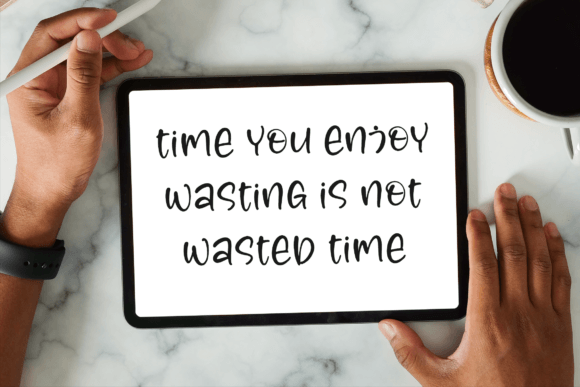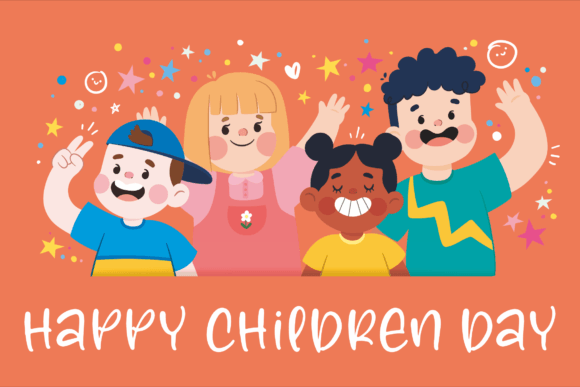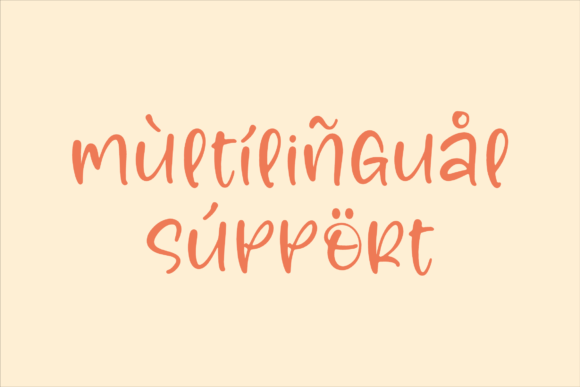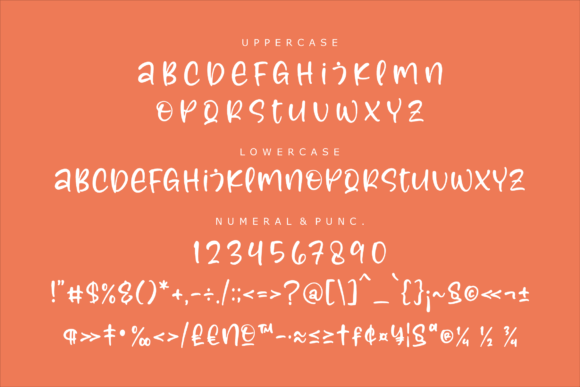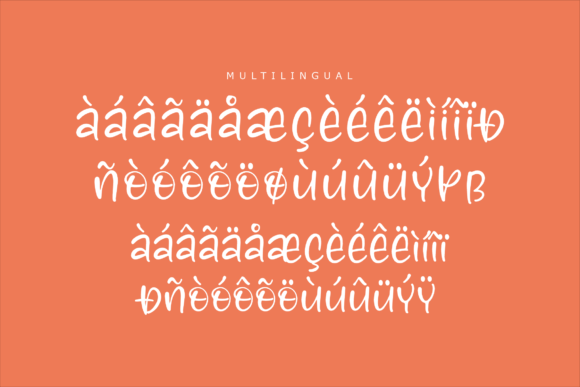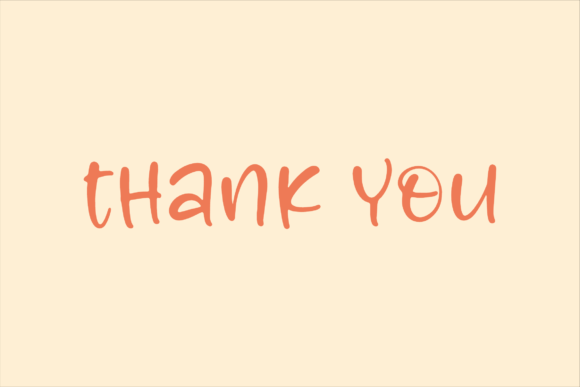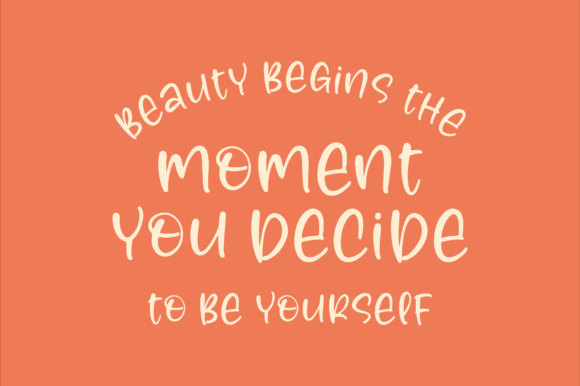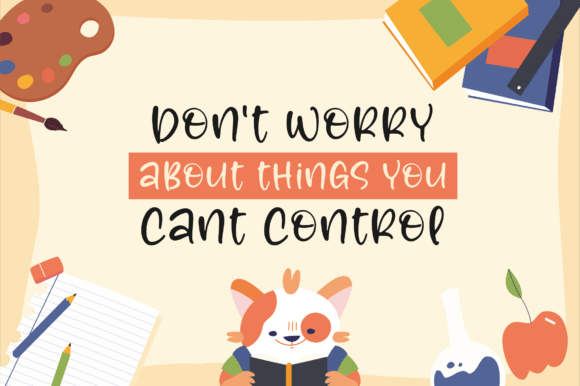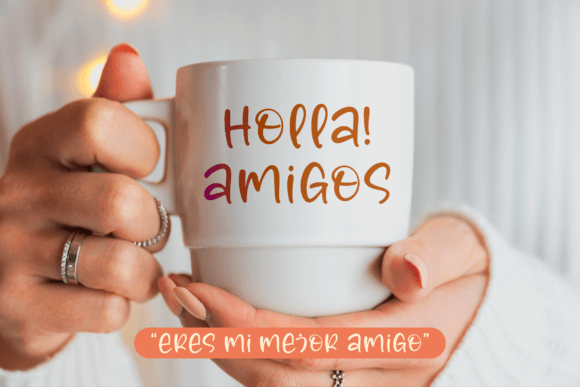
Canbera Grozny Font
Add Beautiful Handwritten Style with Canbera Grozny Font
The Canbera Grozny font is a handwritten script ideal for adding elegance and charm to a wide variety of creative projects. Its beautiful script style makes it suitable for logos, branding projects, homeware designs, product packaging, mugs, quotes, posters, shopping bags, t-shirts, book covers, name cards, invitation cards, greeting cards, labels, photography watermarks, special events, and many other lovely projects.
Perfect for Logos, Branding, and Product Packaging
The Canbera Grozny font fits perfectly in branding materials, logos, product packaging, and merchandise like mugs and t-shirts. Its stylish and readable handwritten style helps your designs connect with audiences and elevate the aesthetic of your products and promotions.
A Handwritten Script Full of Elegance and Versatility
Each character in the Canbera Grozny font is crafted to provide smooth flow and excellent readability. The font’s elegant script style adds a handcrafted, artistic touch that enhances posters, quotes, book covers, and special event materials.
Despite its decorative appearance, the Canbera Grozny font maintains clear readability at various sizes. Whether used for large headlines or smaller accents, it balances style with clarity, making it suitable for a wide range of creative projects.
Make Your Designs Stand Out with Artistic Flair
Typography is crucial in communicating your brand’s identity, and Canbera Grozny adds a beautiful, handwritten spirit. If you want a versatile script font that combines elegance with usability, download the Canbera Grozny font today and elevate your creative projects with style.